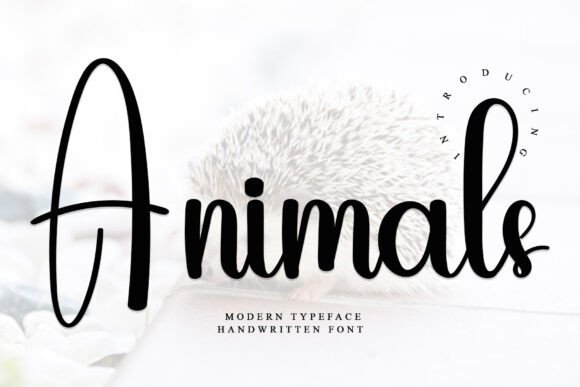
Discover the Charm of Animals Font: A Delicate Handwritten Script
Are you a designer or crafter looking for a font that adds a touch of elegance and whimsy to your creative projects? Look no further than Animals Font, a beautiful handwritten script that is sure to bring your ideas to life. In this article, we’ll take a closer look at the features and benefits of Animals Font, and explore how it can be used to elevate your designs.
What is Animals Font?
Animals Font is a delicate, elegant, and flowing handwritten font that is perfect for adding a touch of sophistication to your designs. With its beautiful and well-balanced characters, this font is versatile enough to match a wide range of design styles and themes. Whether you’re working on a logo, branding project, or craft project, Animals Font is sure to make your ideas shine.
Key Features of Animals Font
- PUA Coded: Animals Font is PUA (Private Use Area) coded, which means that you can easily access all the amazing glyphs and ligatures without any hassle. This feature makes it easy to get creative with your designs and add unique touches that set your work apart.
- Beautiful and Well-Balanced Characters: Each character in Animals Font has been carefully crafted to ensure that it is balanced and visually appealing. This attention to detail makes the font perfect for use in a wide range of design applications.
- Versatile: Animals Font is versatile enough to be used in a variety of design contexts, from logos and branding to craft projects and more.
How to Use Animals Font in Your Designs
Animals Font is easy to use and can be incorporated into your designs in a variety of ways. Here are a few ideas to get you started:
- Logos and Branding: Use Animals Font to create a unique and memorable logo for your business or brand. The font’s elegant and flowing script is perfect for creating a sophisticated and professional image.
- Craft Projects: Add a touch of whimsy and charm to your craft projects with Animals Font. The font is perfect for use in handmade cards, scrapbooking, and other paper crafts.
- Digital Designs: Use Animals Font in your digital designs, such as social media graphics, blog posts, and more. The font’s versatility and elegance make it perfect for a wide range of digital applications.
Tips for Getting the Most Out of Animals Font
Here are a few tips for getting the most out of Animals Font:
- Experiment with Different Sizes and Colors: Animals Font looks great in a variety of sizes and colors. Experiment with different combinations to find the one that works best for your design.
- Pair it with Other Fonts: Animals Font pairs well with a variety of other fonts. Try pairing it with a bold sans-serif font for a striking contrast.
- Use it to Add Emphasis: Use Animals Font to add emphasis to certain words or phrases in your design. The font’s elegant script is perfect for drawing attention to important information.
Animals Font is a beautiful and versatile handwritten script that is perfect for designers and crafters looking to add a touch of elegance and whimsy to their creative projects. With its PUA coding, beautiful and well-balanced characters, and versatility, this font is sure to become a go-to in your design arsenal. Whether you’re working on a logo, branding project, or craft project, Animals Font is sure to bring your ideas to life.